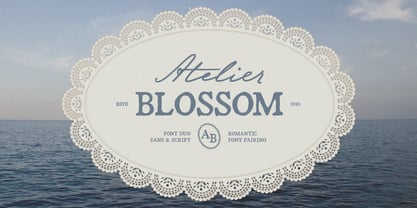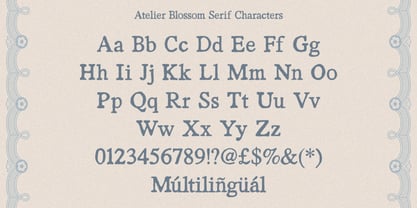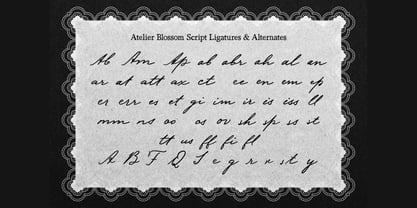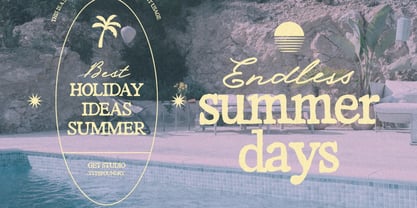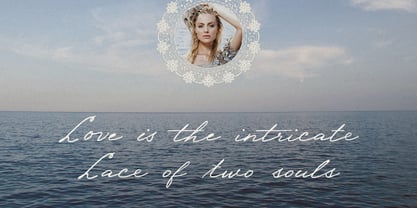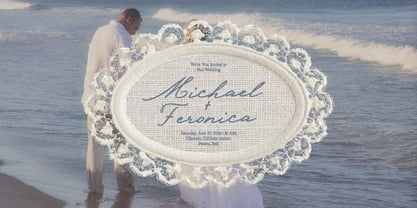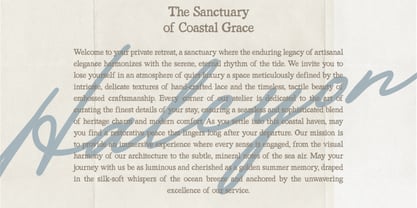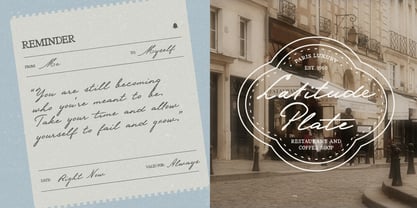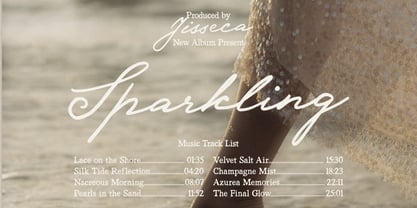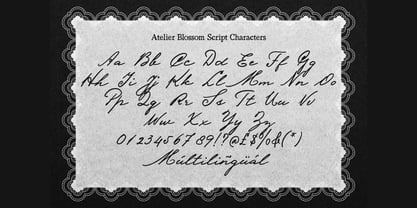
Atelier Blossom
by Get Studio
The Atelier Blossom Font Family was designed by Hermansyah and published by Get Studio. Atelier Blossom contains 3 styles and family package options. More about this family
Atelier Blossom is a refined font duo that pairs a romantic flowing script with a timeless vintage serif—crafted to bring elegance, warmth, and effortless charm into every design. Perfect for branding, wedding stationery, packaging, editorials, and social media, Atelier Blossom offers a versatile typographic voice that feels both intimate and timeless. Every detail, from smooth curves to carefully designed alternates, is made to elevate your work with a graceful, handcrafted touch.
Designers: Hermansyah
Foundry: Get Studio